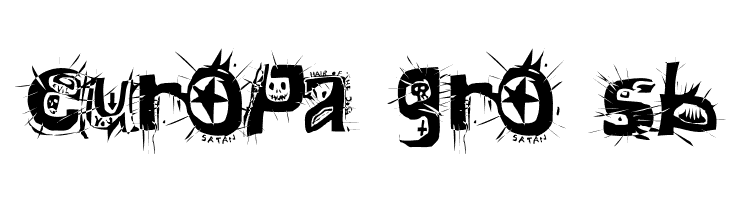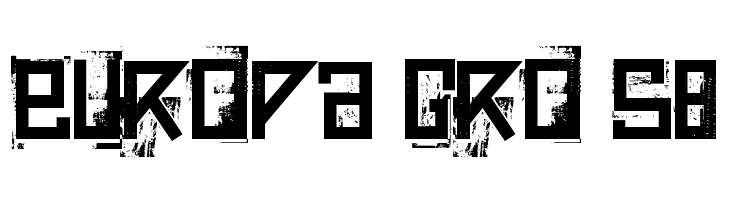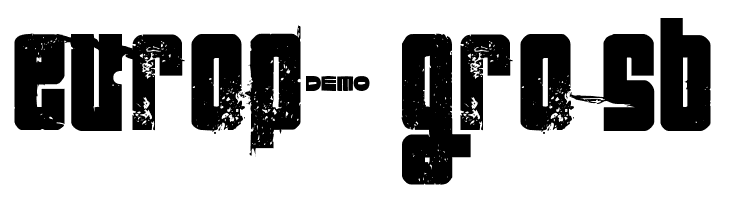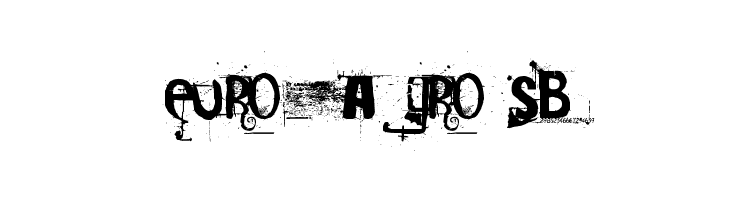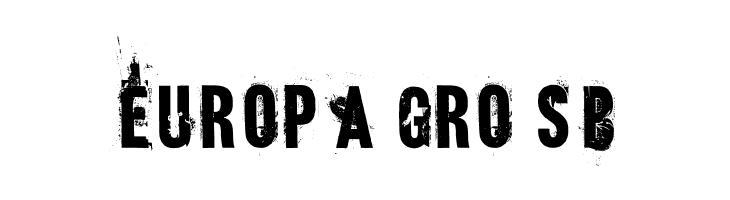
A bold, chaotic display font with a punk rock aesthetic and distressed look.
A bold, grunge-style font with splattered, irregular edges.
A bold, grunge-style font with splatters and drips for an edgy look.
A distressed, grunge-style font with a rugged, hand-crafted appearance.
A bold, distressed font with a grunge aesthetic and geometric shapes.
A bold, distressed font with a grunge aesthetic and uniform character width.
A distressed, grungy font with chaotic, textured characters.